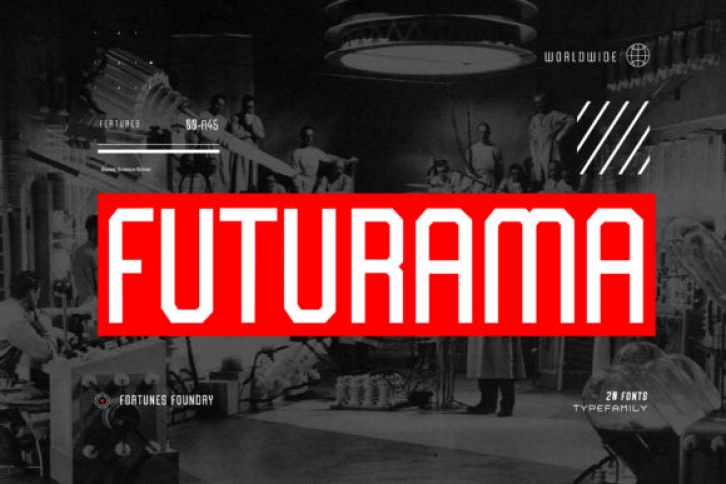
Futurama is a bold and unique display font. Masterfully designed to become a true favorite, this font has the potential to bring each of your creative ideas to the highest level!